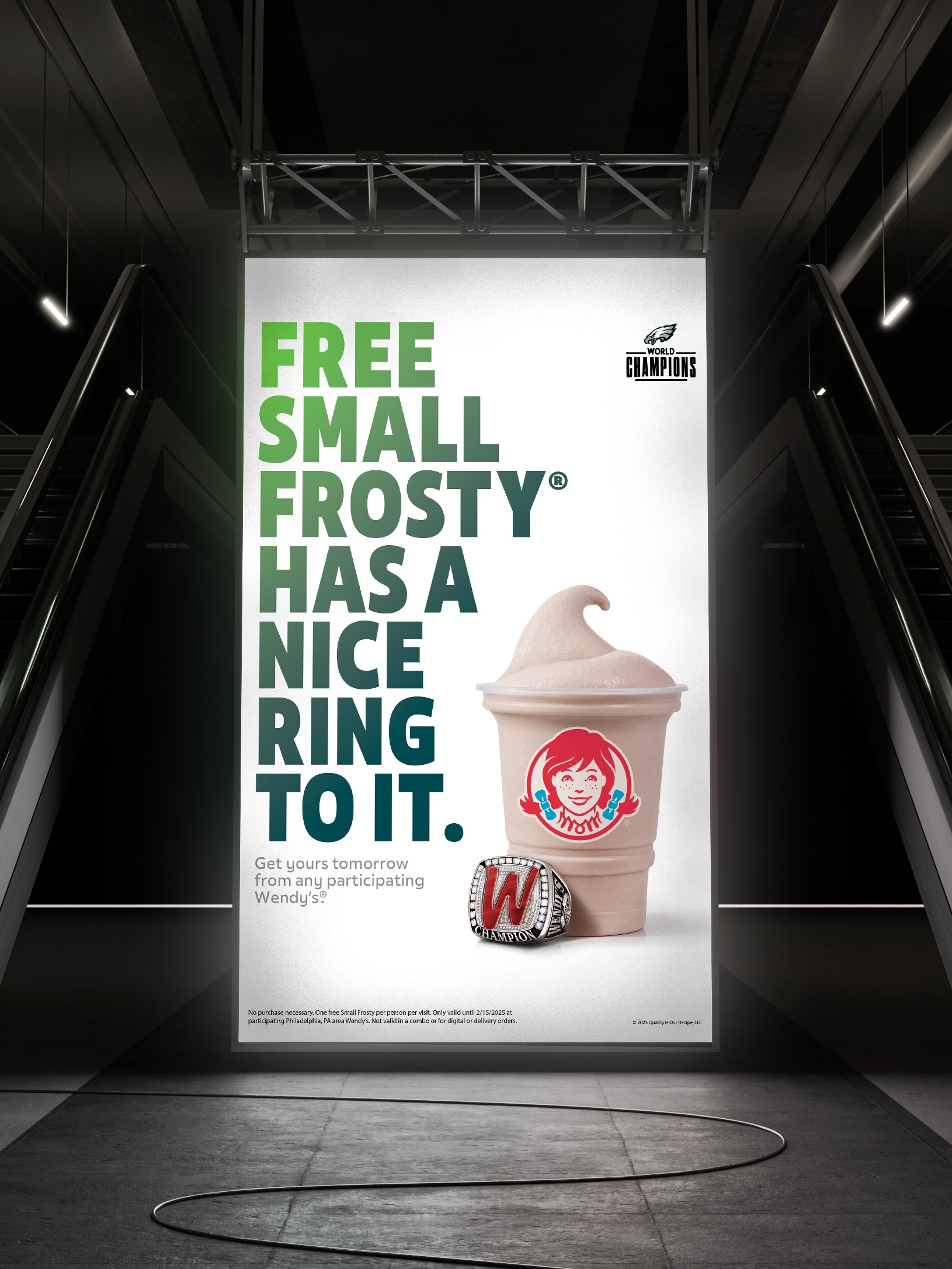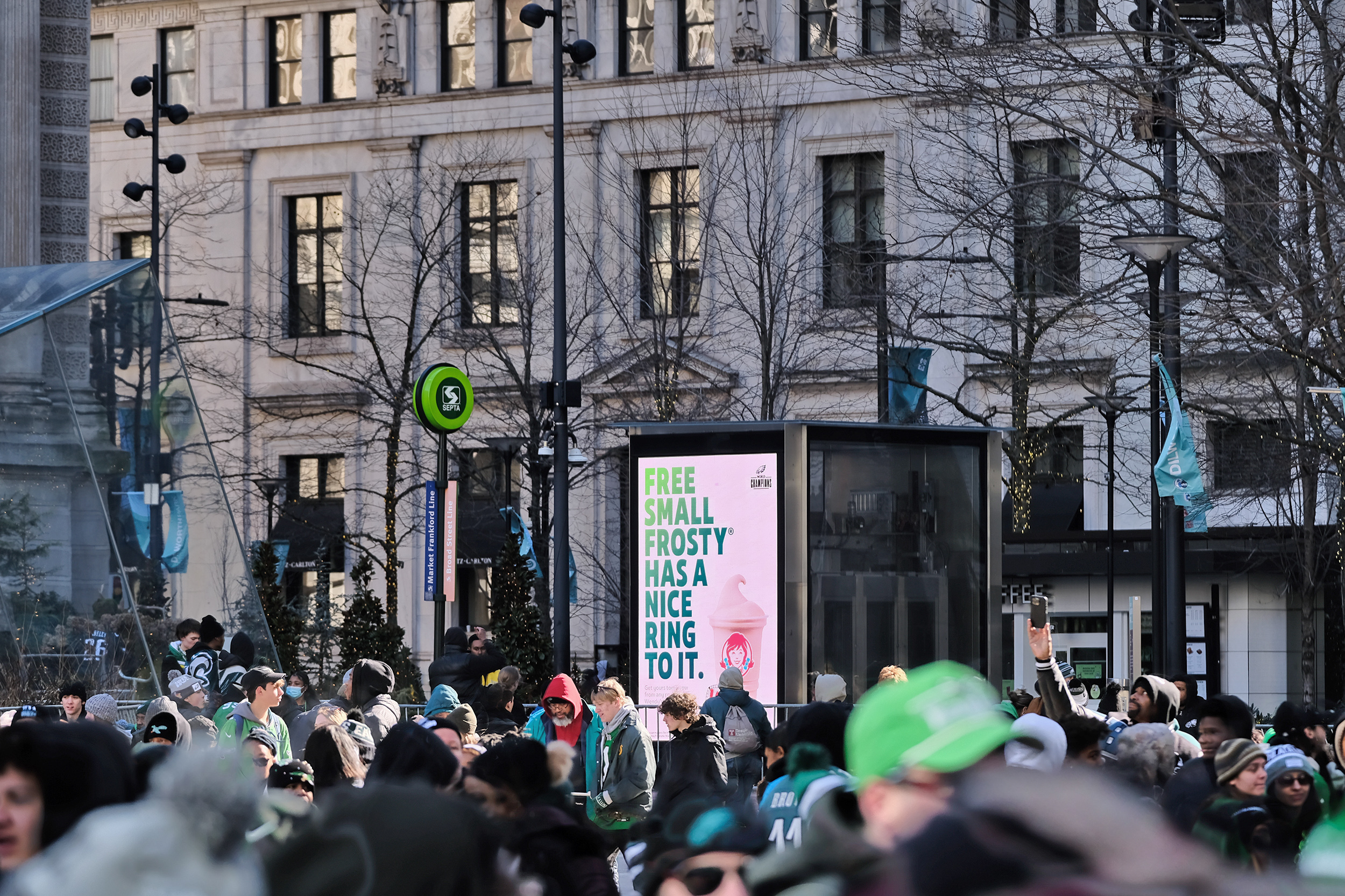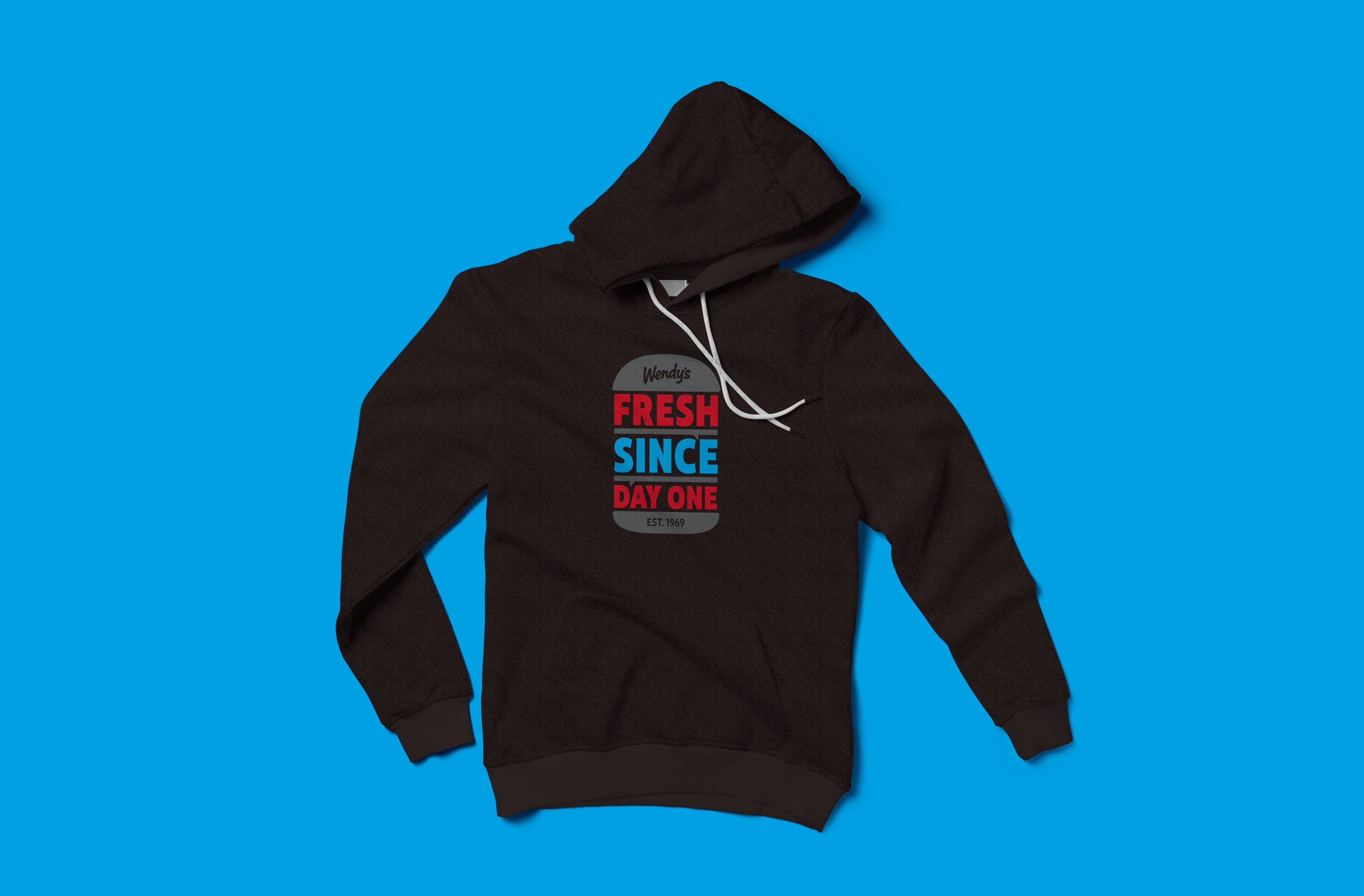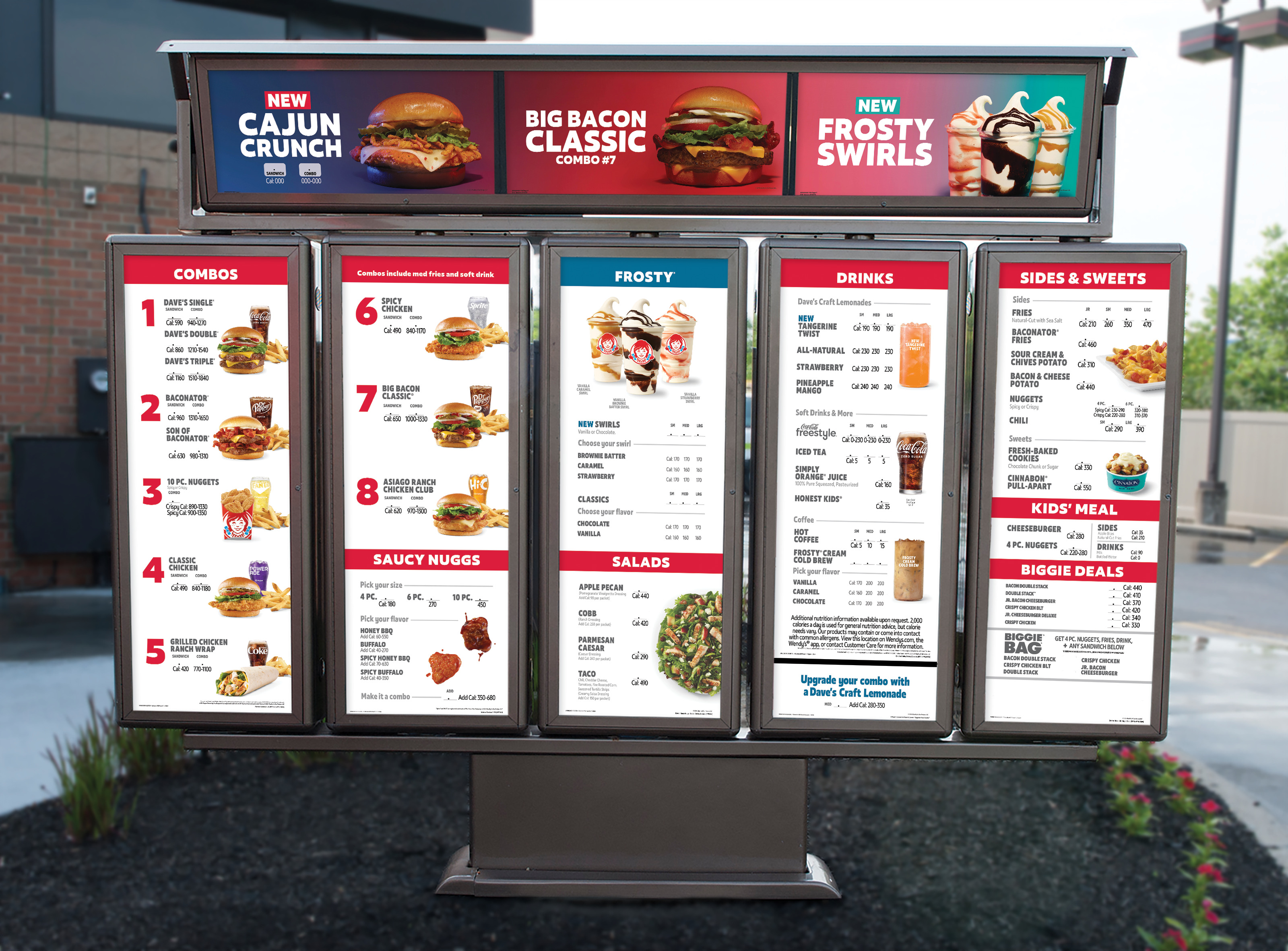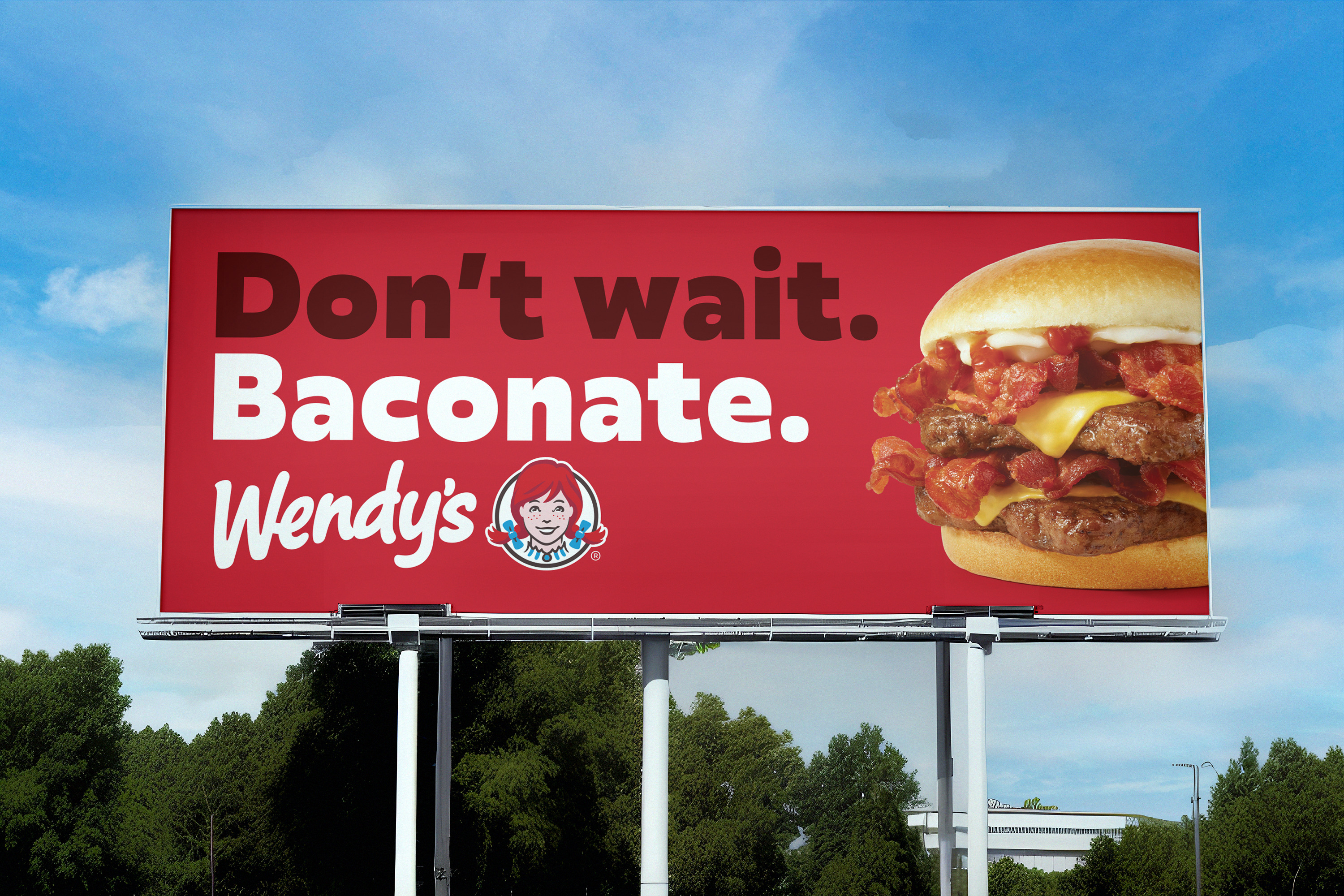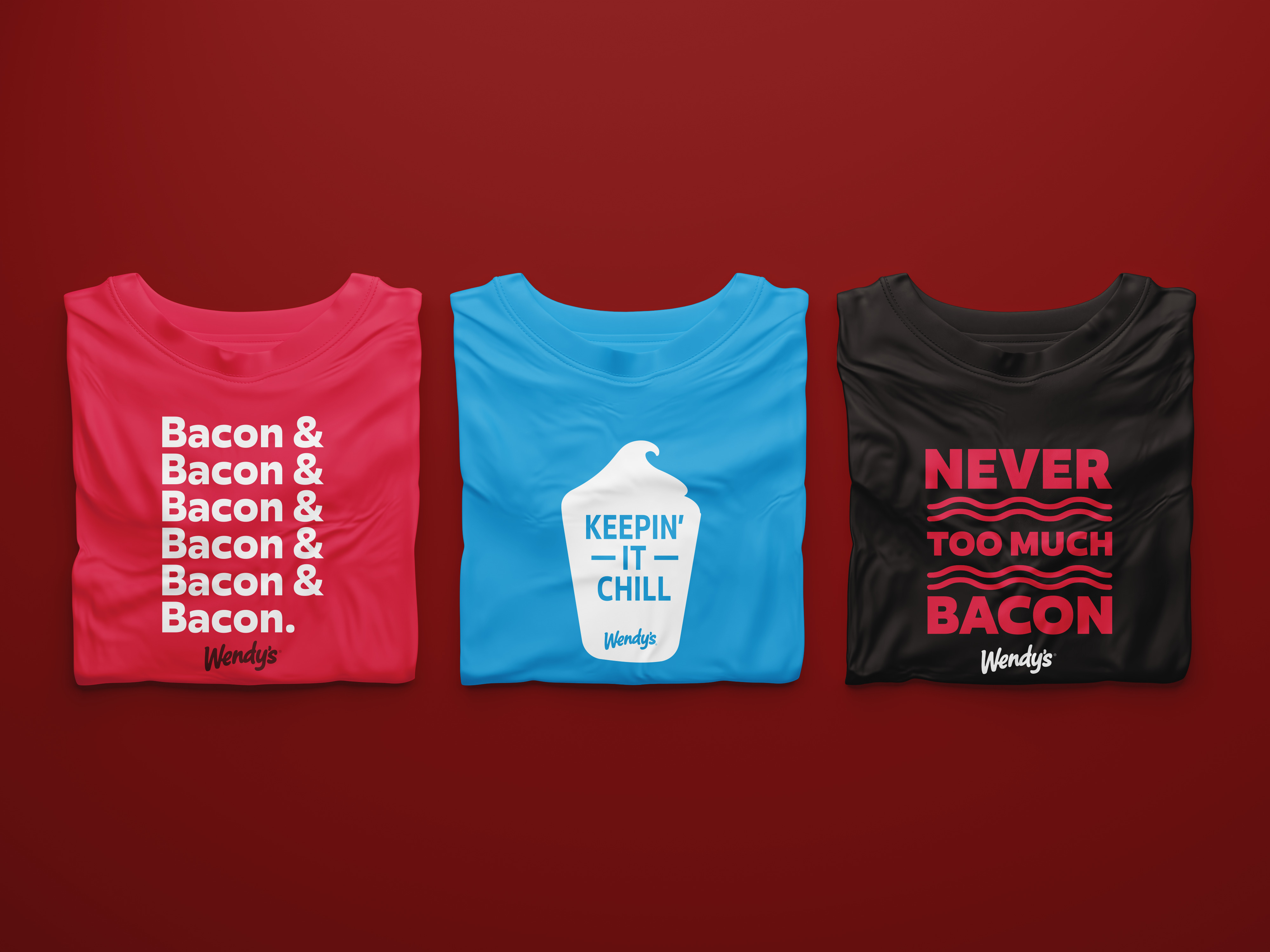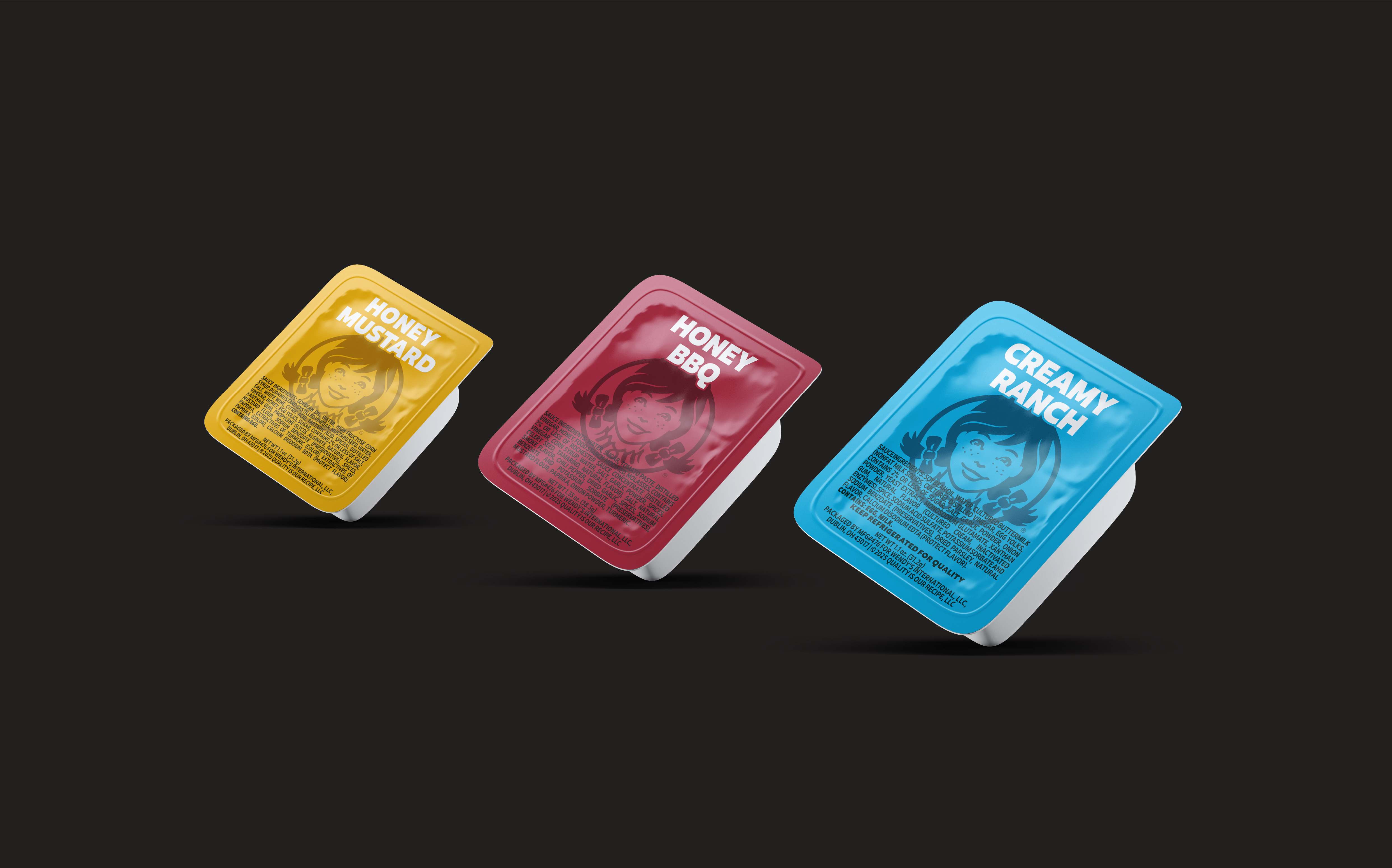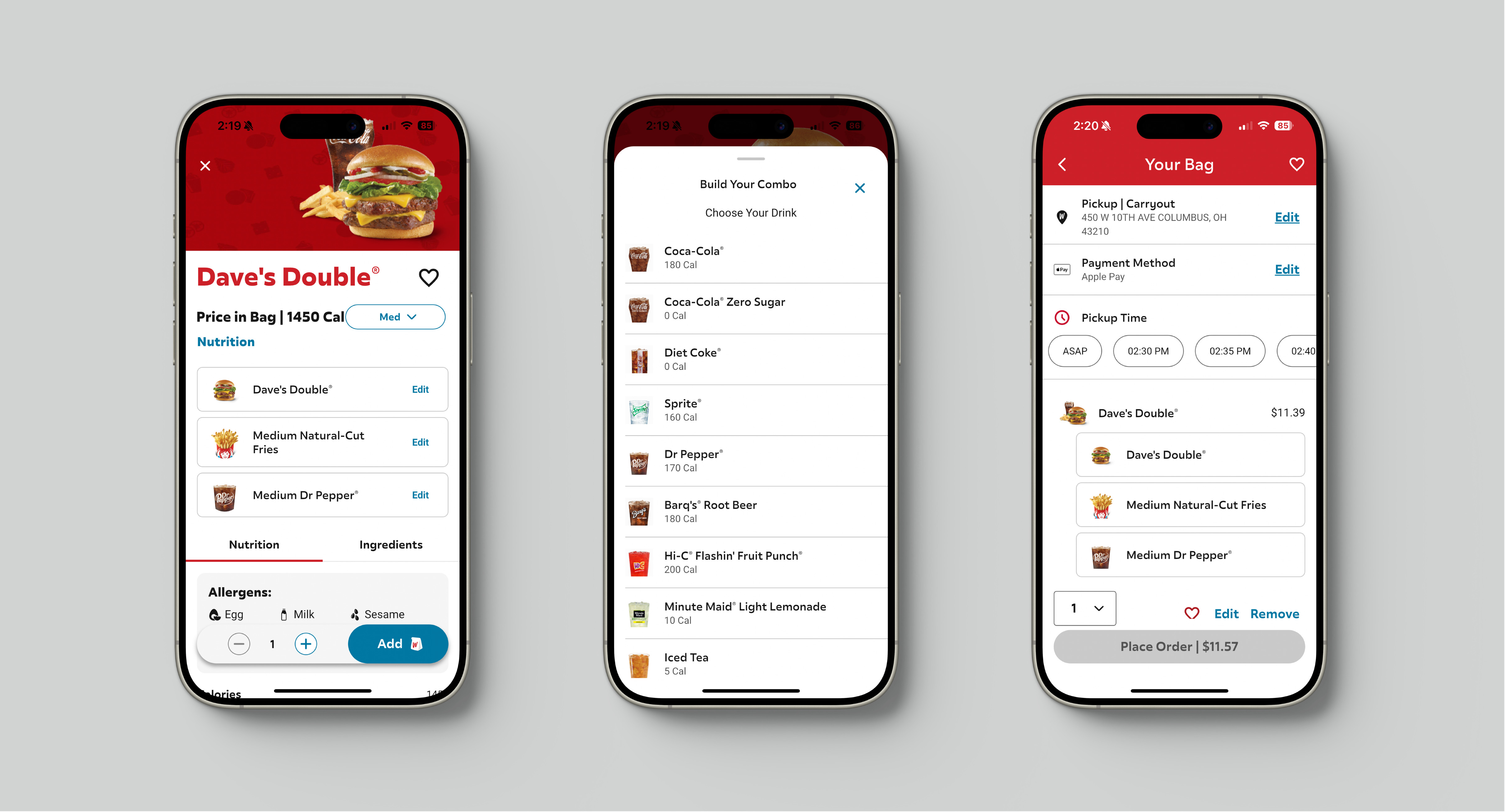
Wendy’s
A Suite of Modified Fonts for Wendy’s
Wendy’s
A Suite of Modified Fonts for Wendy’s
Against a tight deadline, we created a new flexible typeface for Wendy’s by adapting Objektiv into a fresh, squared-off sans with subtle nods to brand heritage, square patties, and Frosty curves – delivering a broad typographic palette with subtle cheekiness.
Wendy’s Fresh and Frosty, Font Modification, 2025
Latin
Over 790 languages
Wendy’s Fresh
Wendy’s Fresh UltraCondensed
Wendy’s Fresh Condensed
Wendy’s Fresh SemiCondensed
Wendy’s Frosty